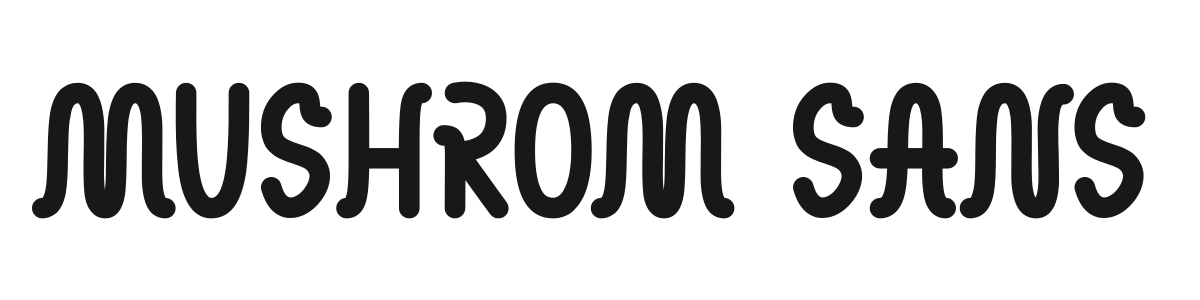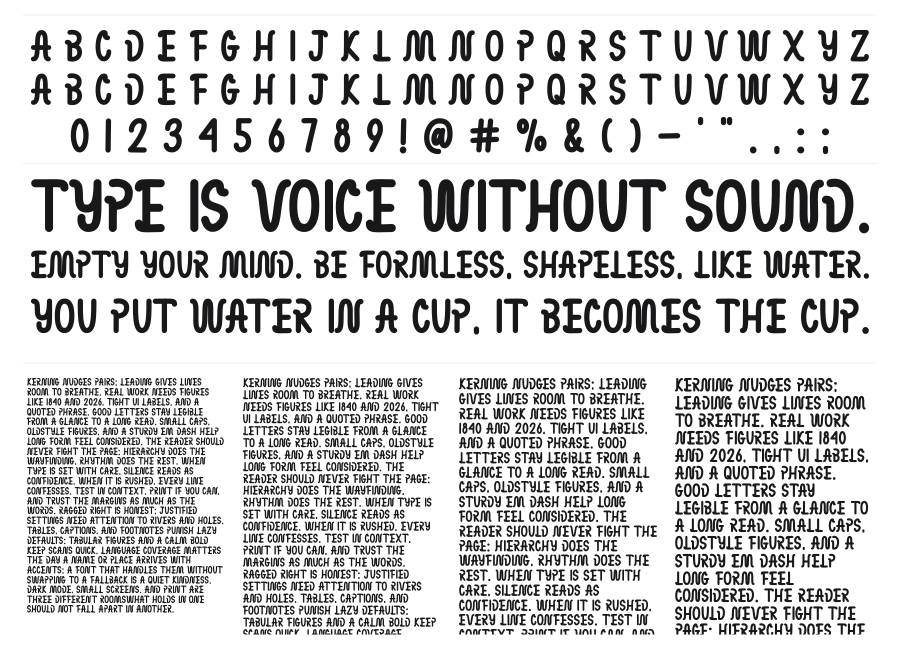
Mushrom Sans
Mushrom Sans is a bold, chunky display sans with heavily rounded terminals and a soft, organic weight that calls to mind cartoon bubble letters or forest fungi. The characters have a loose, handcrafted irregularity that keeps things feeling warm rather than mechanical. It works well on packaging, children's media, food branding, or anywhere a headline needs personality without aggression.